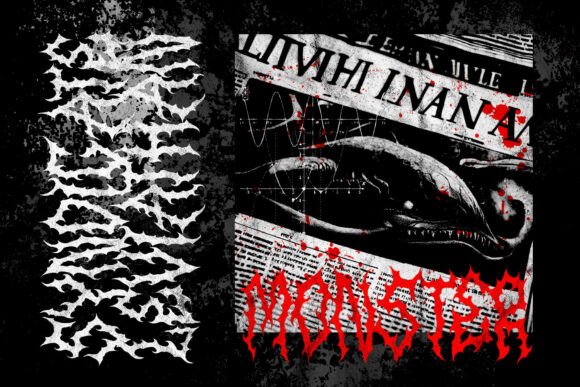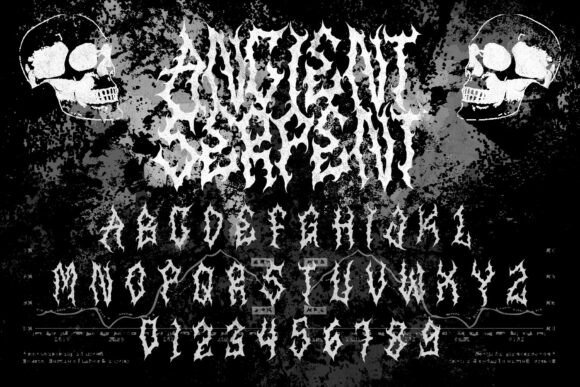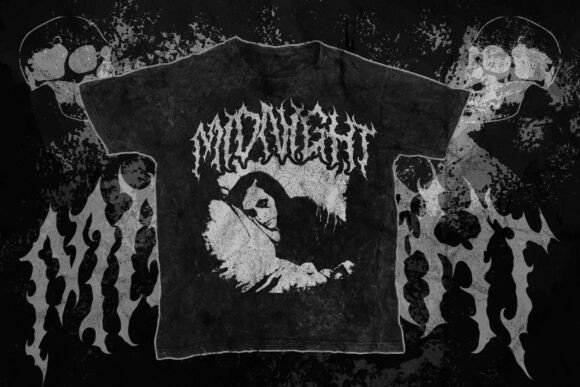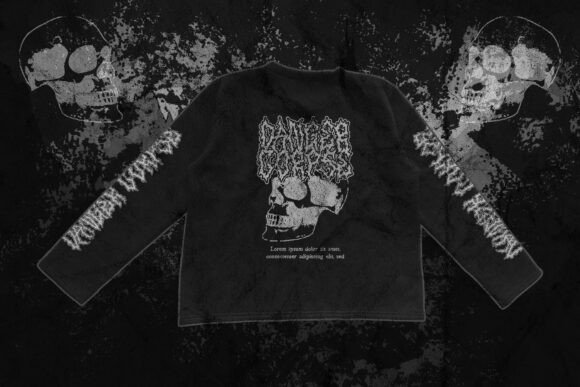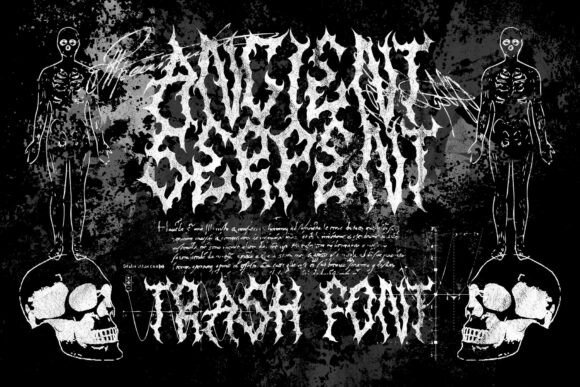
Unleashing Chaos: The Ancient Serpent Font Revolution
I still remember the design project that led me to discover the Ancient Serpent font. I was working on a black metal band’s merchandise, and I needed a font that could capture the raw energy and chaos of their music. After hours of searching, I stumbled upon Ancient Serpent, and it was love at first sight. The decayed strokes, corroded edges, and jagged forms screamed “extreme” and “unholy,” making it the perfect fit for the project.
A Designer’s Honest Review
- ✨ Unbridled Chaos: Ancient Serpent bleeds chaos and ritual, making it a perfect fit for extreme music and brutal visual culture.
- ✅ Hand-crafted Imperfections: The font’s intentionally distorted look and hand-crafted imperfections add to its anarchic spirit.
- 🔥 Visual Violence: Ancient Serpent is pure visual violence, making it ideal for projects that need to scream, snarl, or summon something ancient and evil.
While Ancient Serpent is a beast of a font, there are a few quirks to keep in mind:
- ⚠️ Legibility: Due to its distorted nature, Ancient Serpent may not be suitable for long blocks of text or projects requiring high legibility.
- 🤔 Pairing: The font’s bold personality can be overwhelming, so it’s essential to pair it with complementary fonts that can balance its intensity.
A Practical Guide to Using Ancient Serpent
- Experiment with the font’s OpenType features, such as stylistic alternates, to add more chaos to your design.
According to the creator of Ancient Serpent, the font was born from the darkest depths of underground design. Inspired by the raw energy of extreme music and brutal visual culture, the designer sought to create a font that embodied the anarchic spirit of chaos and rebellion.
| What type of projects is Ancient Serpent best suited for? | Ancient Serpent is ideal for projects that require a bold, chaotic aesthetic, such as black metal band logos, zine titles, vinyl packaging, and experimental poster work. |
| Is Ancient Serpent suitable for body text? | Due to its distorted nature, Ancient Serpent is not recommended for long blocks of body text. It’s best used for headlines, titles, or short phrases. |